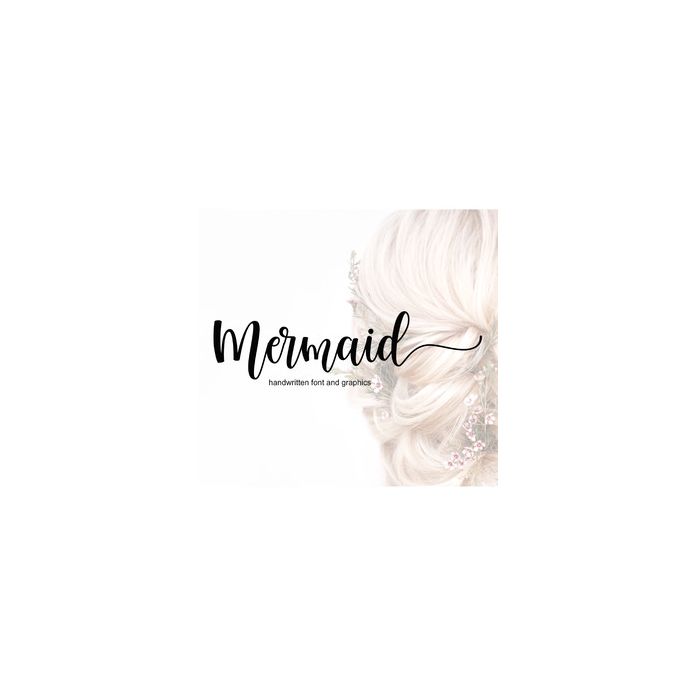
This cute and stylish font can work for so many things! It's modern, classy, fun, casual and upscale. Transform any of your products or projects with this chameleon font.